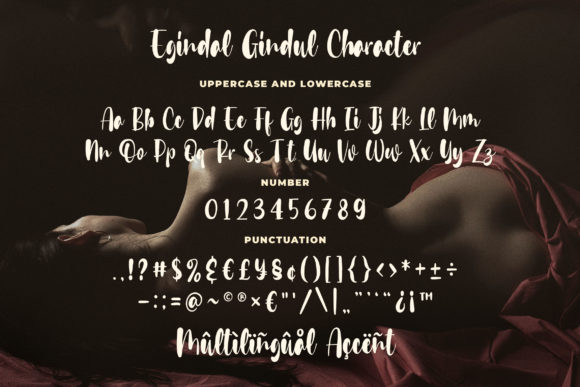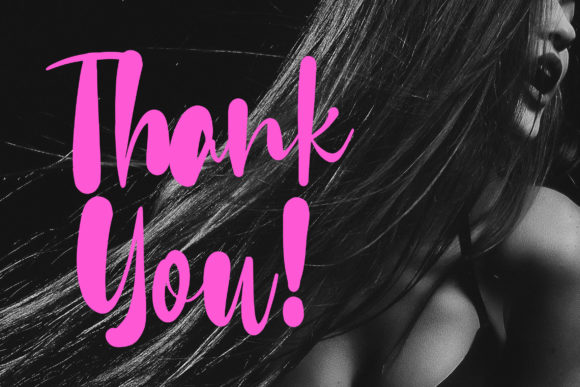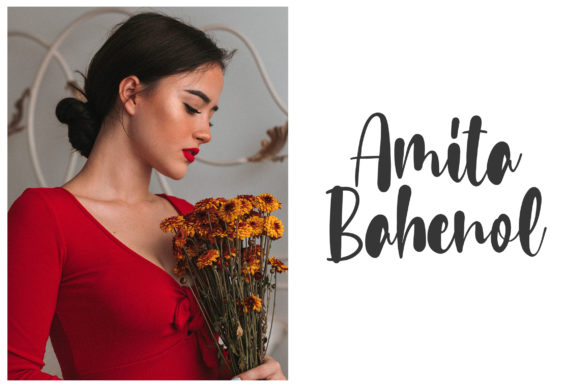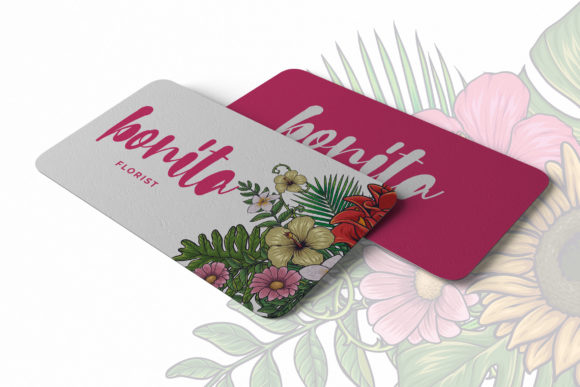
Introducing Egindal Gindul Font: A Modern Calligraphy Marvel
Egindal Gindul Font is a stunning typeface that has taken the design world by storm. Inspired by the elegance and fluidity of modern calligraphy, this font boasts bold characters that can instantly elevate your projects. Whether you’re a designer, crafter, or simply someone who appreciates beautiful typography, Egindal Gindul is sure to captivate your senses.
The Inspiration Behind Egindal Gindul
Egindal Gindul’s design is rooted in the principles of modern calligraphy, a style that emphasizes expressive and artistic lettering. The font’s creator aimed to capture the essence of this style, infusing Egindal Gindul with a sense of dynamism and flair. The result is a font that exudes confidence and sophistication, making it perfect for projects that require a touch of elegance.
Key Features of Egindal Gindul Font
- Bold Characters: Egindal Gindul’s bold characters are its most striking feature. Each letter is carefully crafted to make a statement, ensuring your text stands out in any design.
- Modern Calligraphy Inspiration: The font’s inspiration from modern calligraphy gives it a unique and artistic feel, setting it apart from more traditional typefaces.
- Versatility: Egindal Gindul is incredibly versatile, suitable for a wide range of projects, from branding and advertising to packaging and digital media.
- Ease of Use: Despite its bold and artistic nature, Egindal Gindul remains easy to read and use, making it a practical choice for designers.
Perfect for a Wide Variety of Projects
One of the standout qualities of Egindal Gindul Font is its versatility. It’s perfectly suited for:
- Branding and Logo Design: Create a lasting impression with bold, memorable logos and branding materials.
- Advertising and Marketing: Grab attention with eye-catching headlines and promotional materials.
- Packaging Design: Elevate product packaging with sophisticated and stylish typography.
- Digital Media: Enhance your digital content, including social media graphics, blogs, and websites, with a touch of elegance.
- Crafting and DIY Projects: Add a professional touch to your handmade crafts, journals, and DIY projects.
Tips for Using Egindal Gindul Font
To make the most of Egindal Gindul Font, consider the following tips:
- Pair with Simpler Fonts: Combine Egindal Gindul with simpler, sans-serif fonts for a balanced look.
- Experiment with Colors: Take advantage of Egindal Gindul’s bold nature by experimenting with vibrant colors and gradients.
- Use for Headlines: Utilize Egindal Gindul for headlines and titles to create visual impact.
- Adjust Letter Spacing: Fine-tune letter spacing to enhance readability and aesthetic appeal.
Egindal Gindul Font is a remarkable typeface that brings the beauty of modern calligraphy to your fingertips. Its bold characters and versatile nature make it an excellent choice for a wide variety of projects. Whether you’re a professional designer or a crafty DIY enthusiast, Egindal Gindul is sure to inspire your creativity and elevate your designs. Discover the possibilities with Egindal Gindul Font today and make your mark with stunning typography.